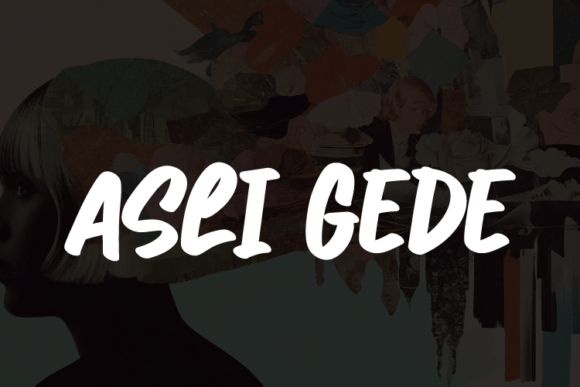
The Asli Gede Font: A Designer’s Dream Come True
I’ll never forget the frustration of working on a project, hours spent perfecting every detail, only to be held back by a font that just didn’t cut it. The lines were wobbly, the letters were uneven, and it was a nightmare to work with. But what if I told you there’s a font out there that can change all that? Enter the Asli Gede font, a modern and elegant typeface designed to make your design life a whole lot easier.
What Makes Asli Gede Special?
- ✨ Exceptional Readability: The Asli Gede font is crystal clear, even at small sizes, making it perfect for body text or captions.
- ✅ Flexibility: With its wide range of glyphs and stylistic alternates, you can customize your text to fit any design style.
While the Asli Gede font is a powerhouse, there are a few things to keep in mind:
- ⚠️ Some Glyphs Can Be Tricky: A few of the more decorative glyphs can be a bit finicky, requiring some extra fiddling to get just right.
- 🤔 Not Ideal for All Caps: While the font looks great in mixed case, it can lose some of its elegance when used in all caps.
The Story Behind Asli Gede
The Asli Gede font was created with the goal of providing a modern, elegant, and highly readable typeface for designers and crafters. Inspired by traditional Indonesian art and architecture, the font combines classic elements with a fresh, contemporary twist. The result is a versatile and sophisticated font that’s perfect for a wide range of design projects.
| Is Asli Gede suitable for body text? | Absolutely! The Asli Gede font is designed for excellent readability, making it perfect for body text and long-form content. |